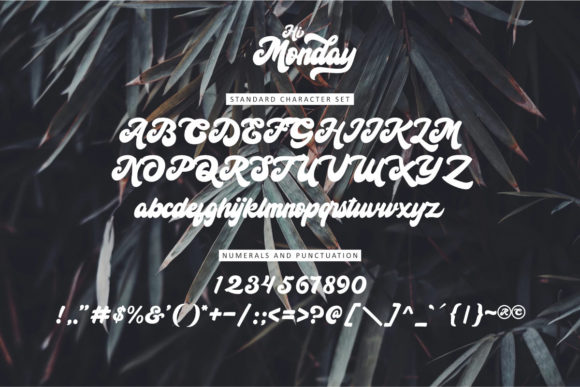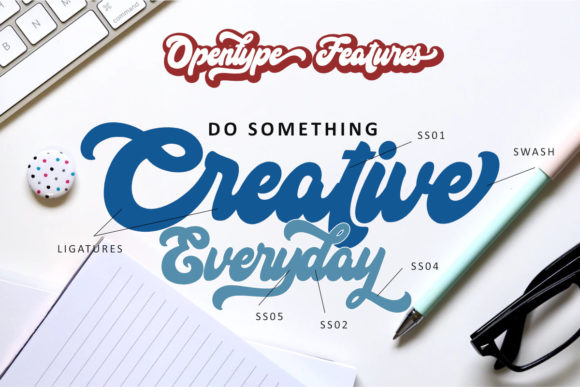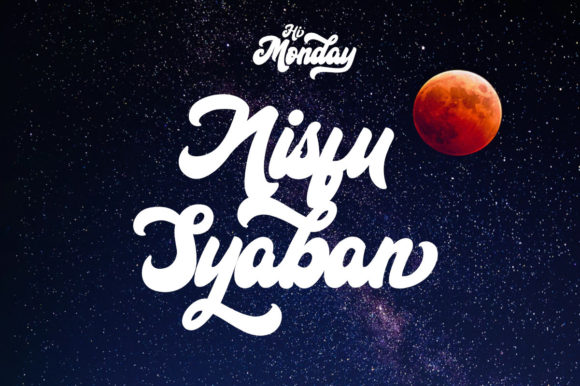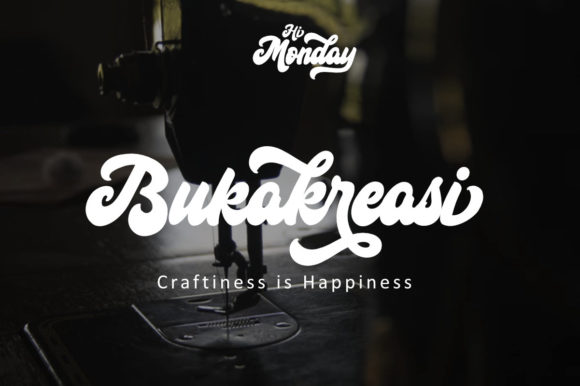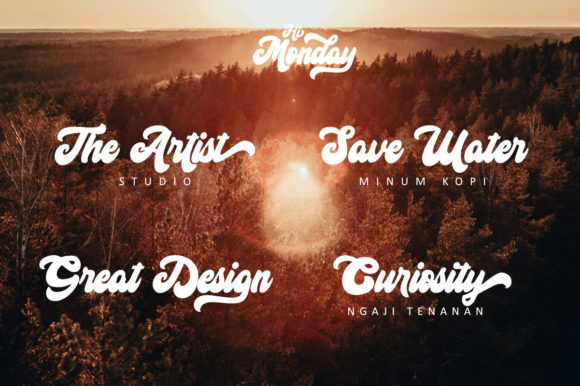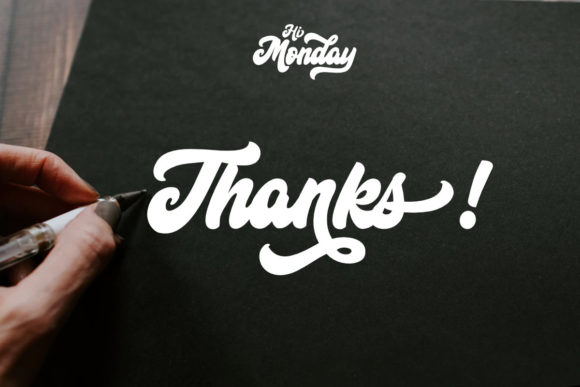
Hi Monday Font
About Hi Monday Font
Inspired by classic calligraphy, Hi Monday is a beautiful and bold handwritten font with lots of charm! It will add a special spark to any design creation.